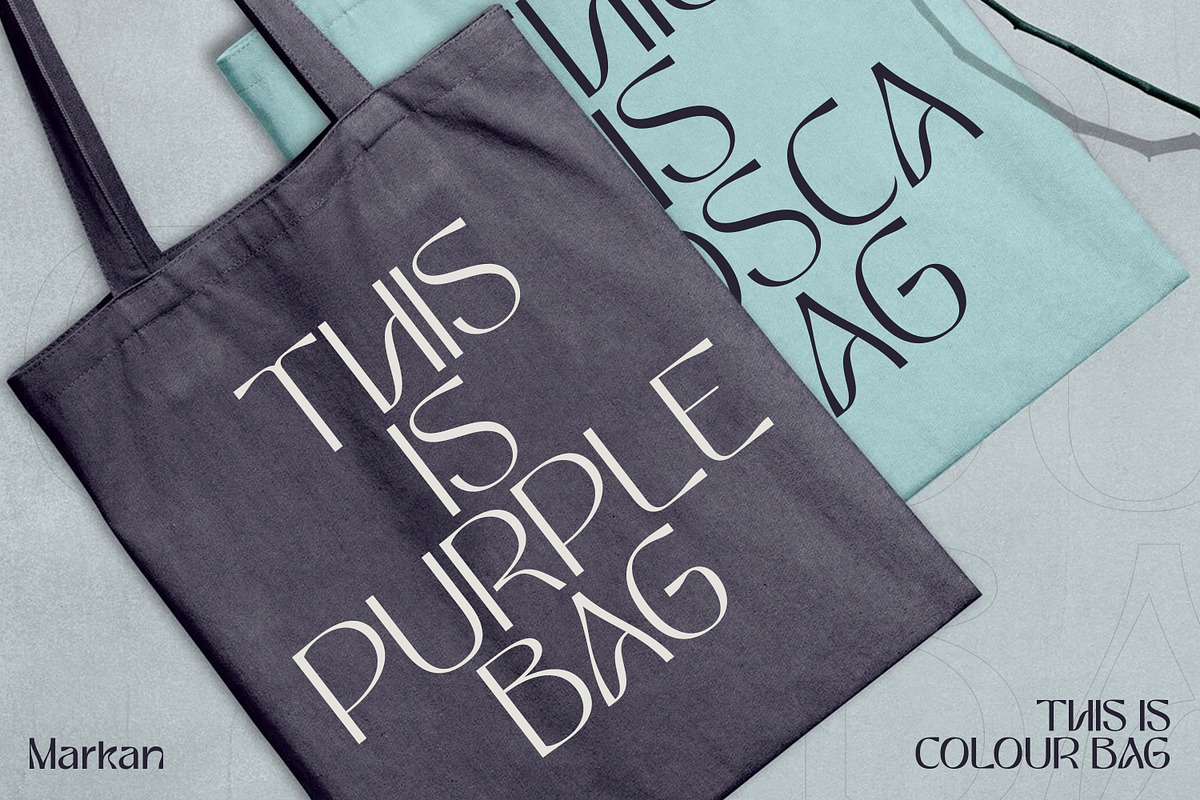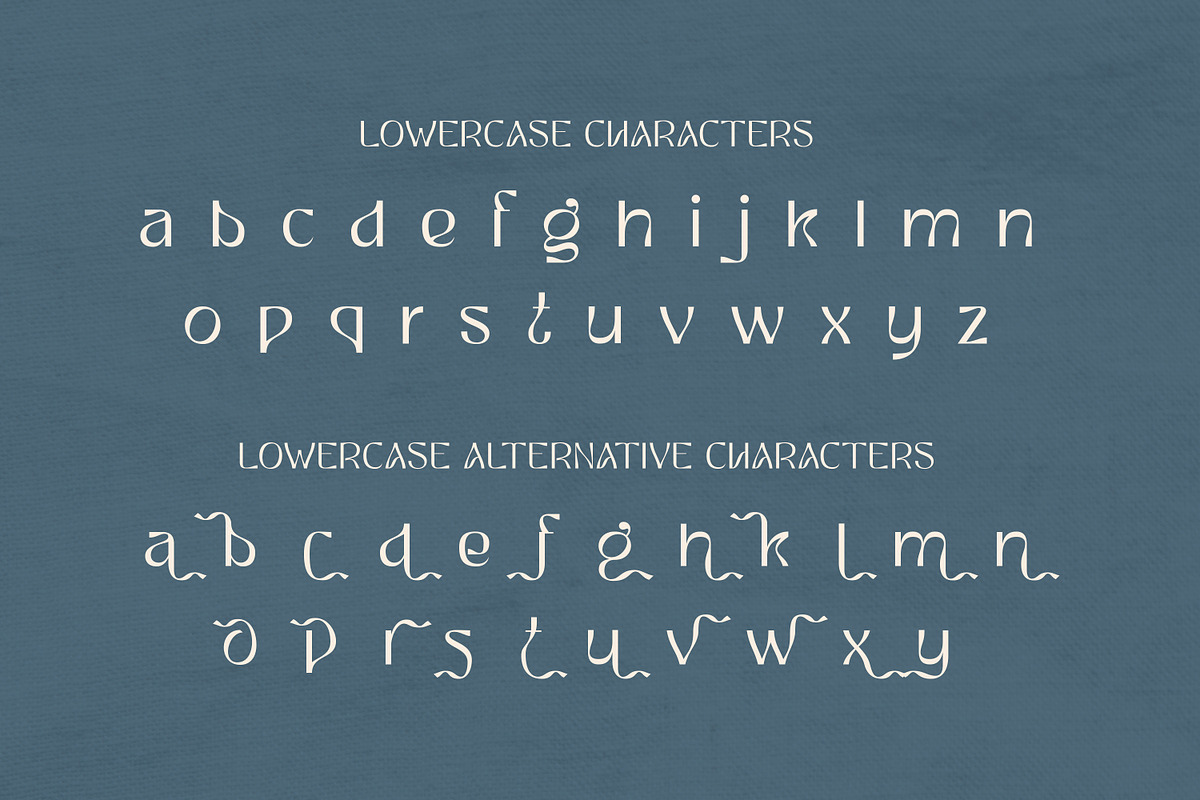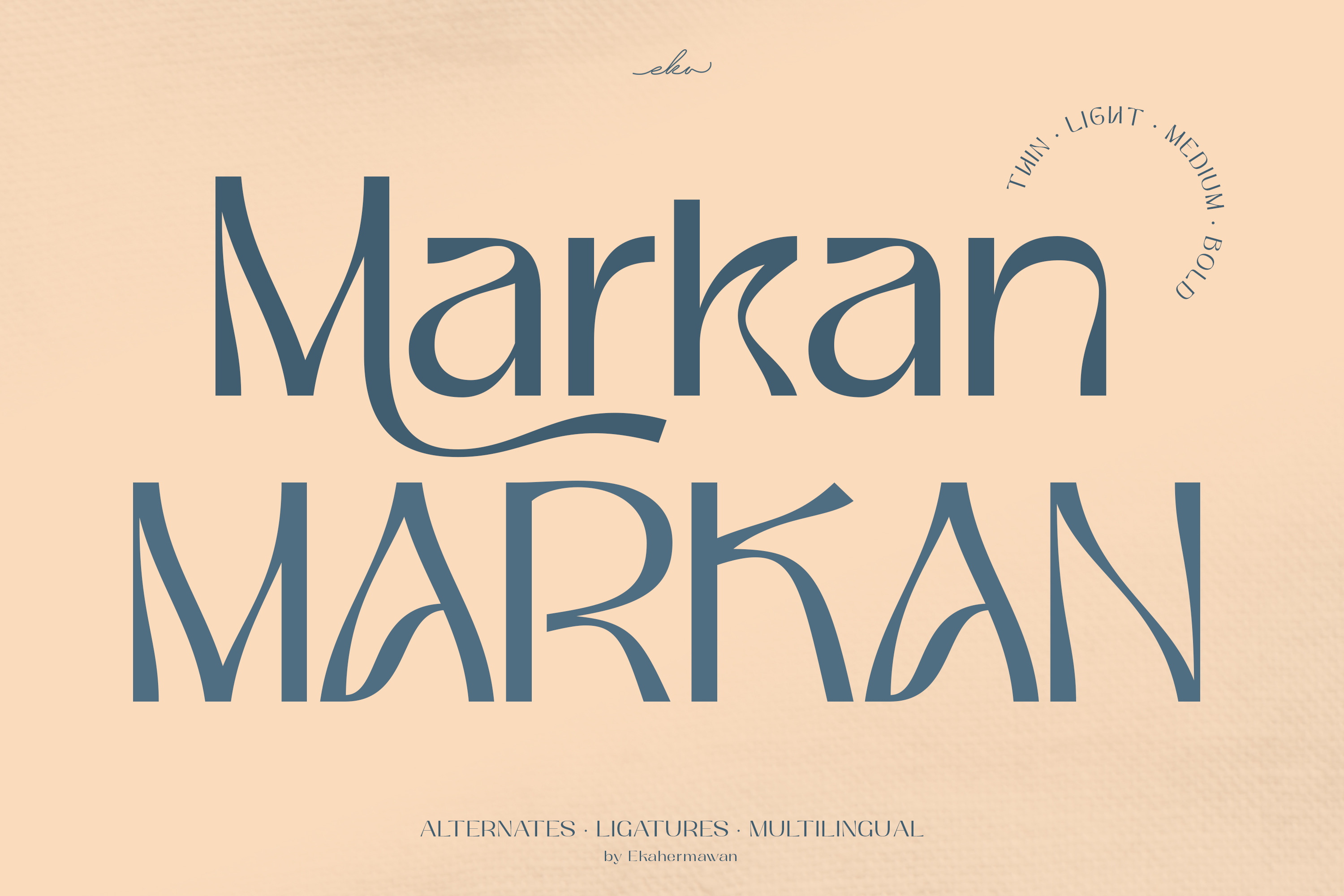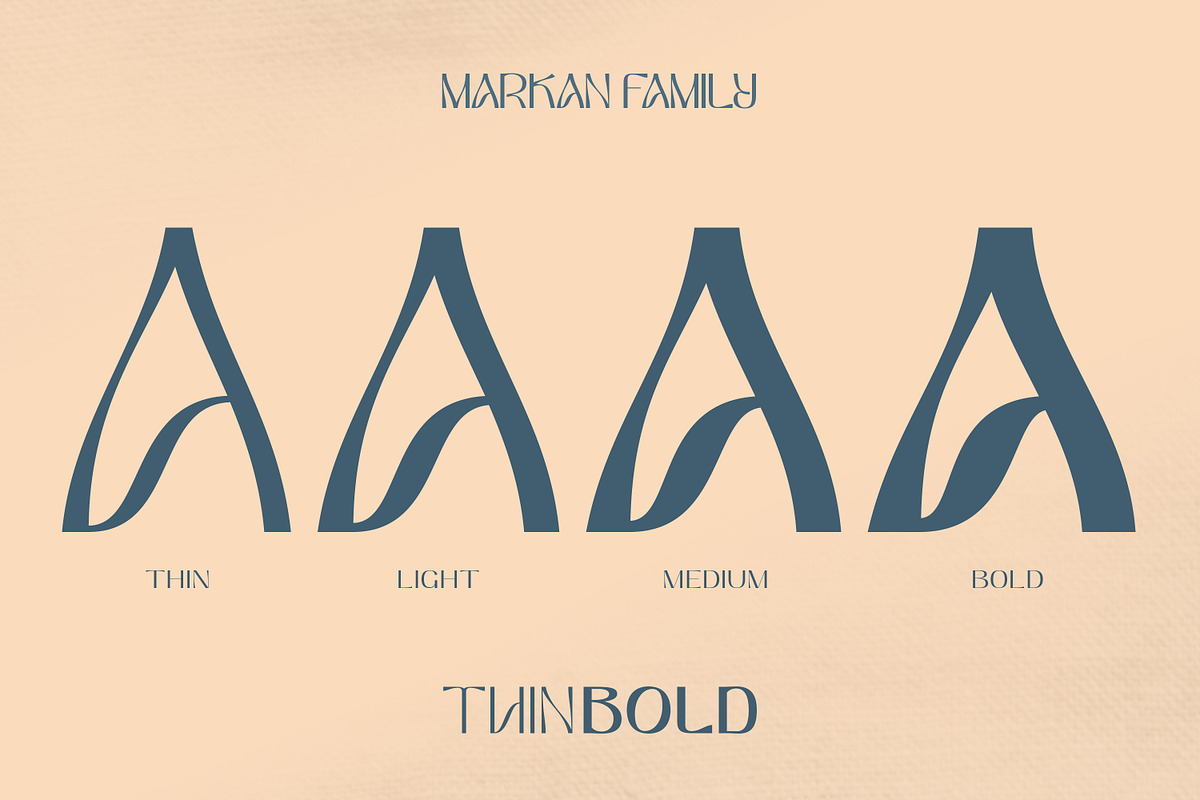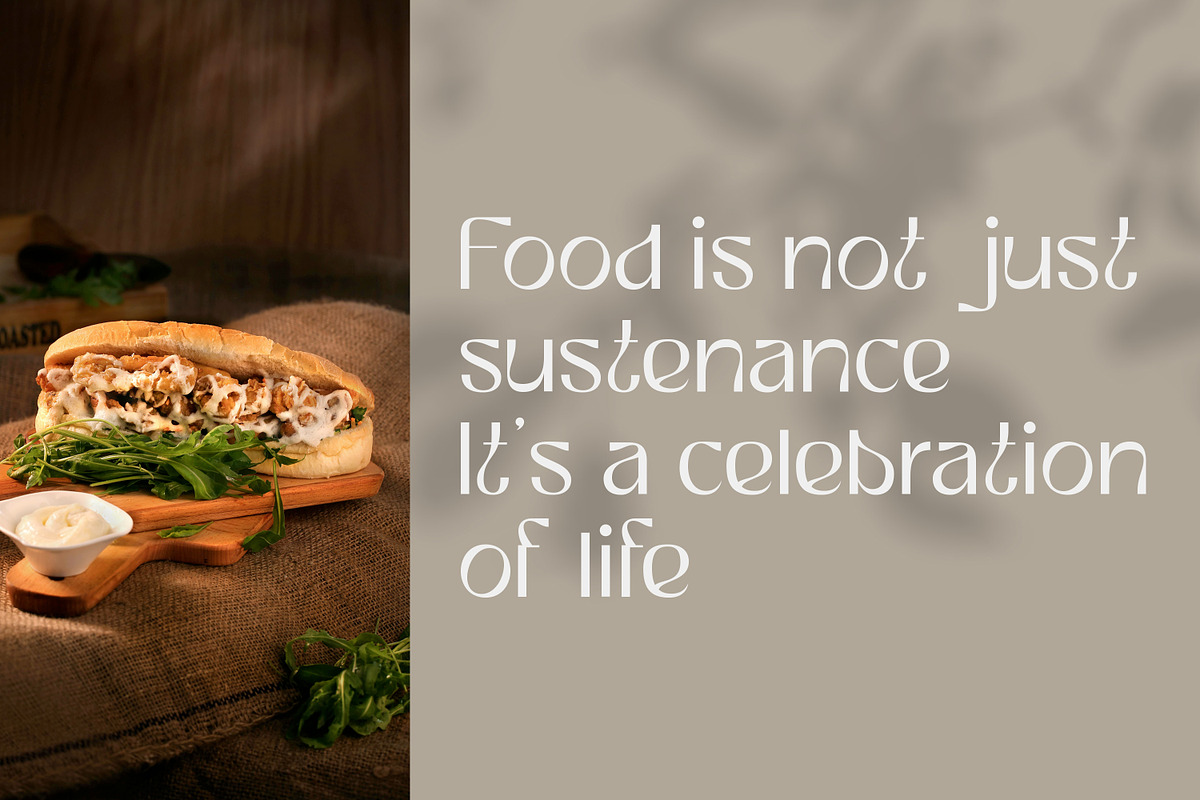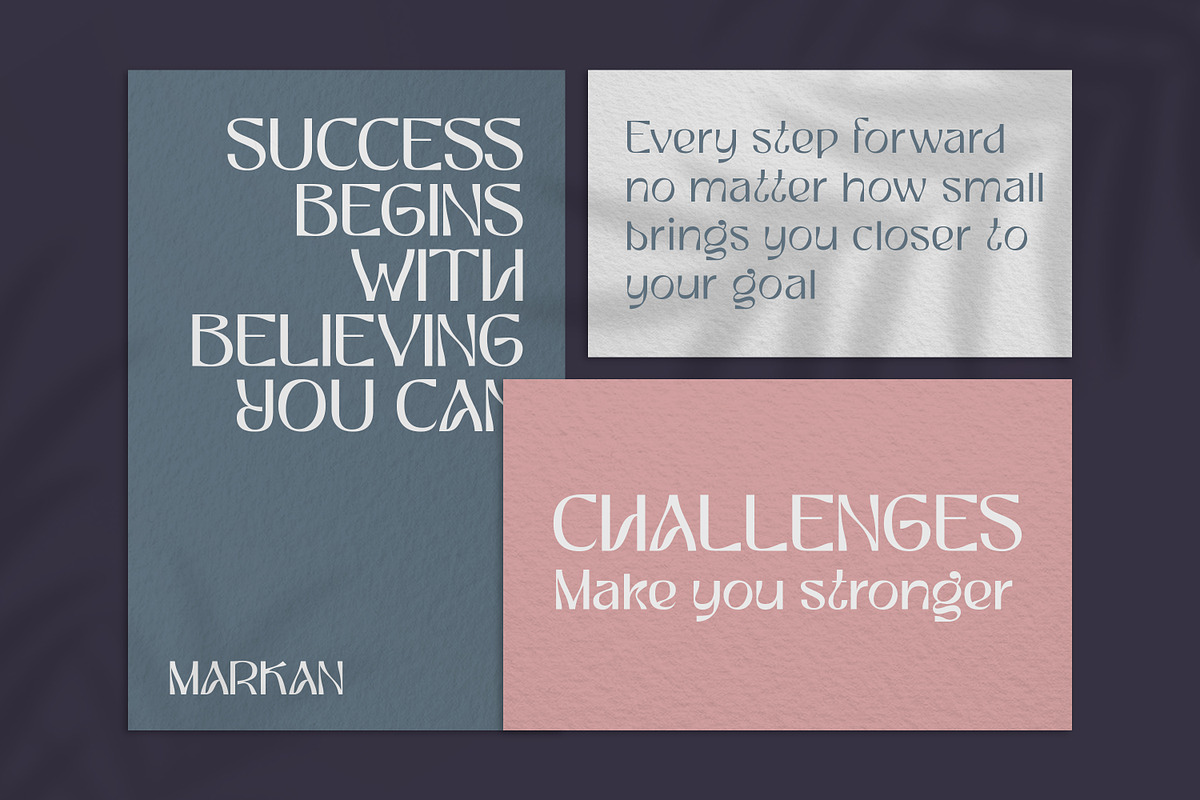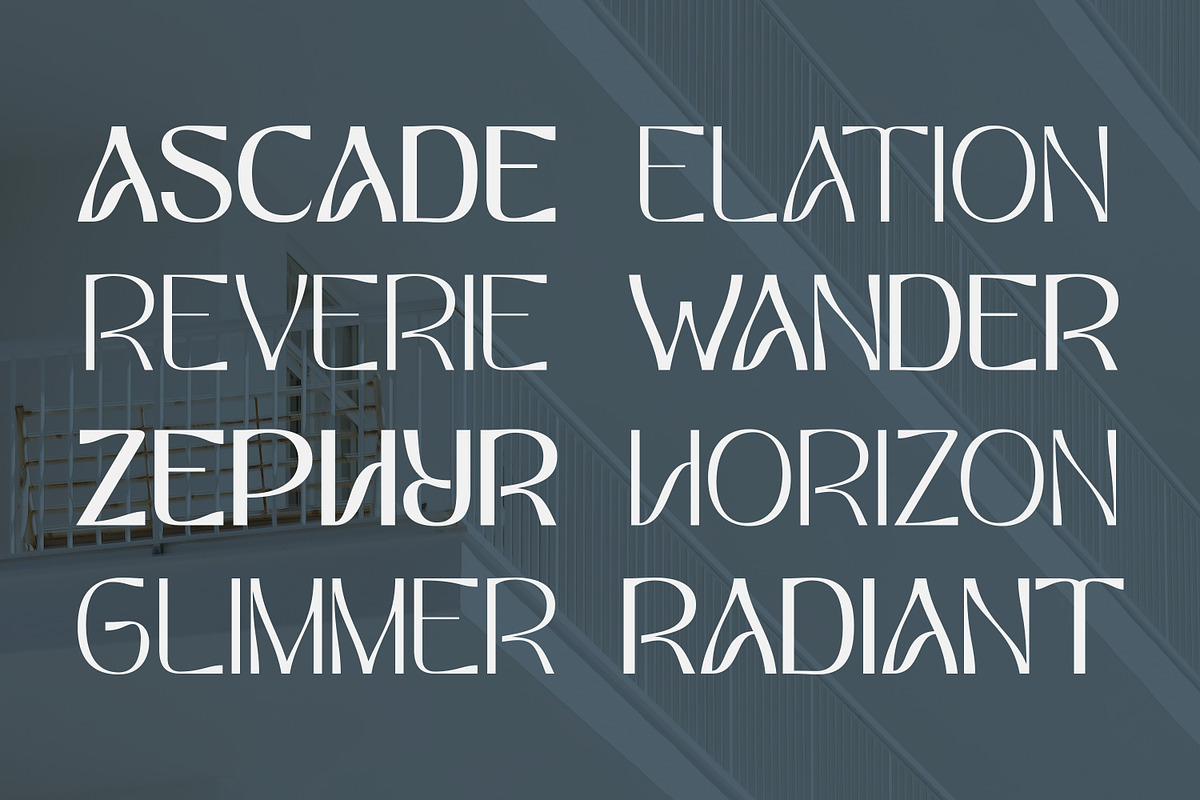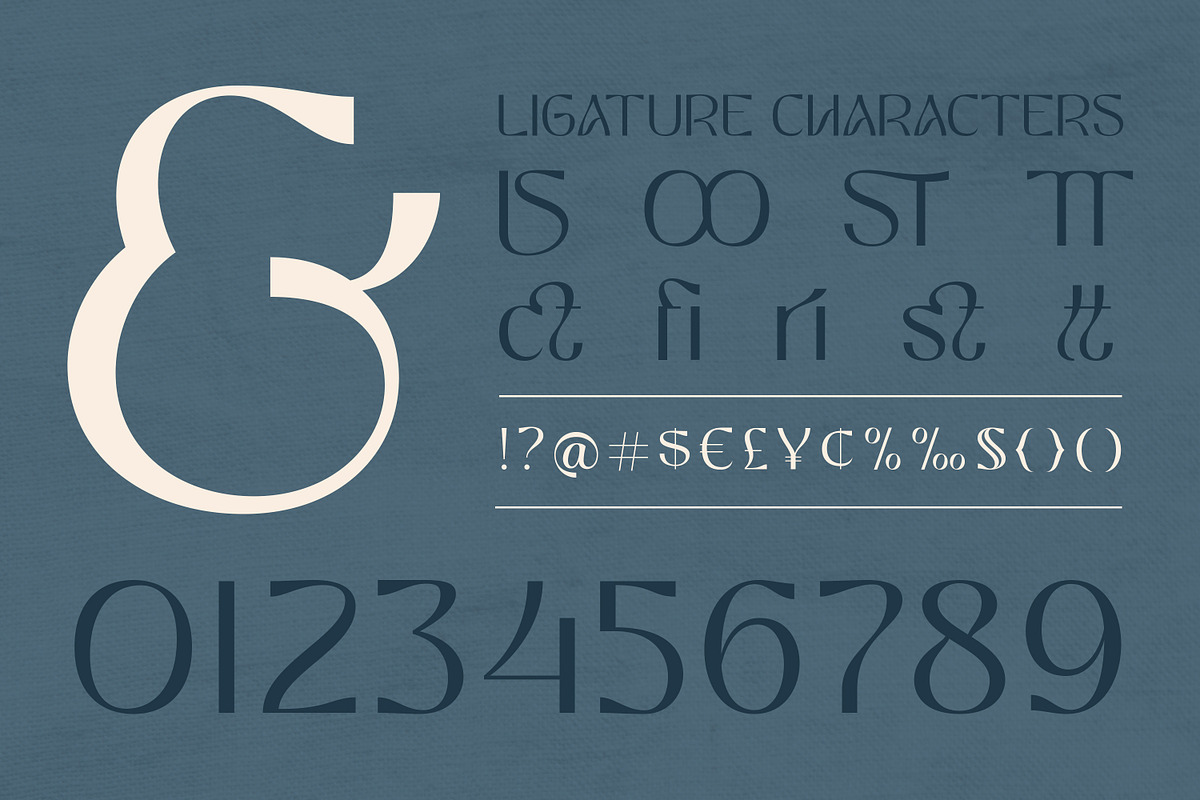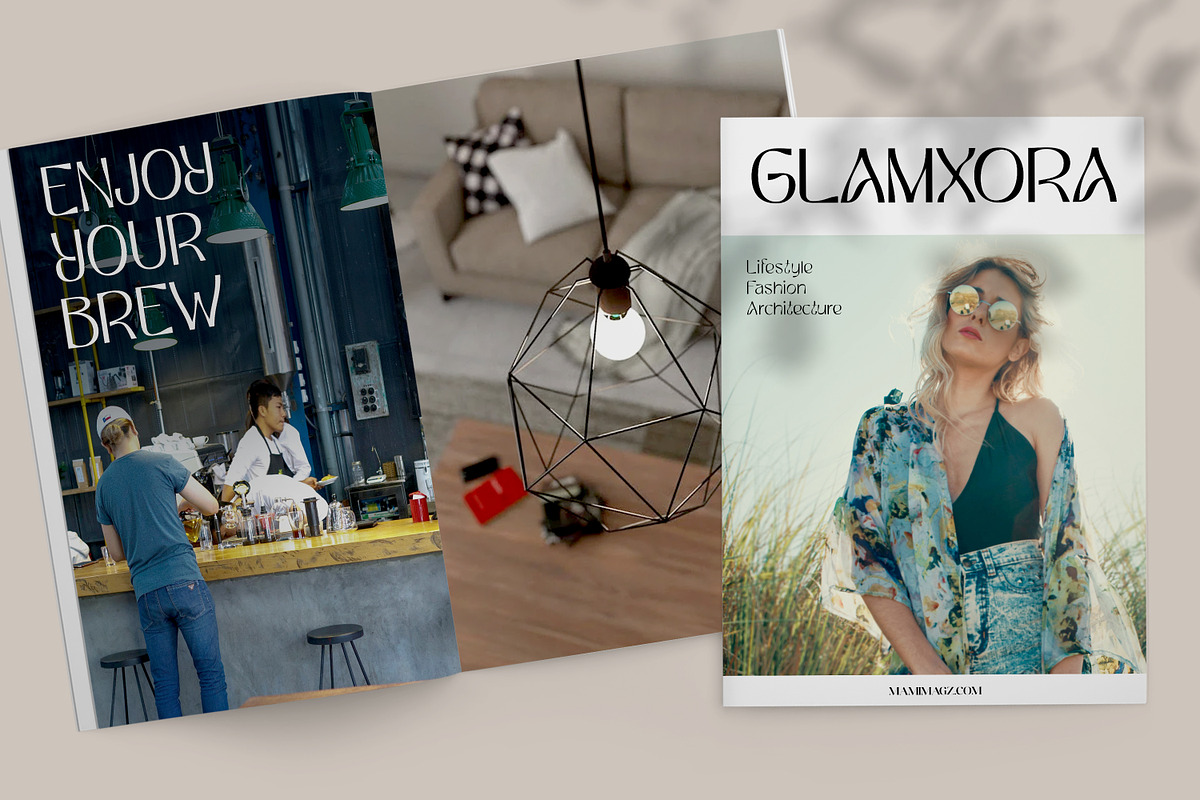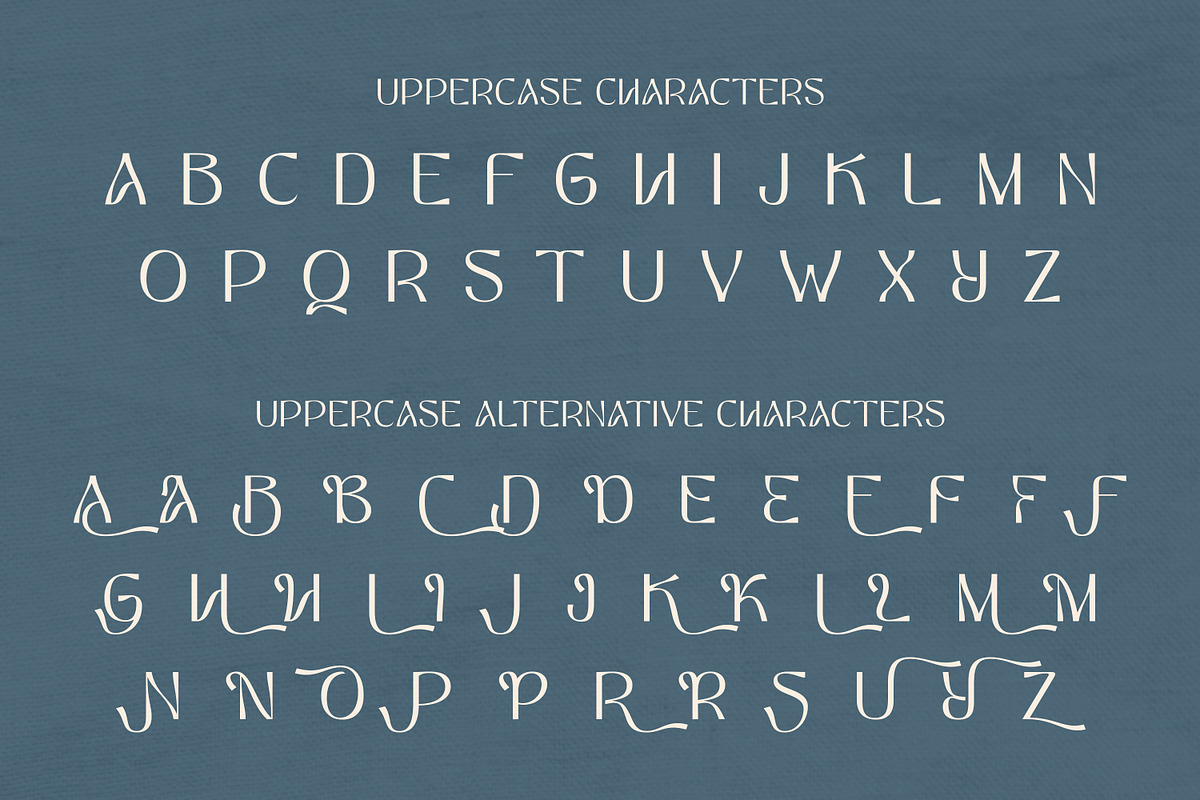
Markan - Display Font
Markan – A Unique Display Typeface that consists of 4 weights from thin to bold. Make your words stand out with Markan, a display font that brings an artistic flair to every letter. Designed with unique shapes and playful curves, this typeface is perfect for those who dare to be different. Whether you’re crafting logo design, branding, poster, magazines, labels, merchandise, invitation, presentation, advertising or heading, Markan ensures your message won’t go unnoticed.
Features: OpenType support Playful to use (with ligature and alternative characters) Multilingual support PUA Encoded
Why Choose Markan? This font isn’t just text—it’s personality. Its eye-catching forms make it ideal for creative projects that need to pack a punch. From modern advertisements to retro-style designs, Markan adapts effortlessly, ensuring your audience remembers your message.